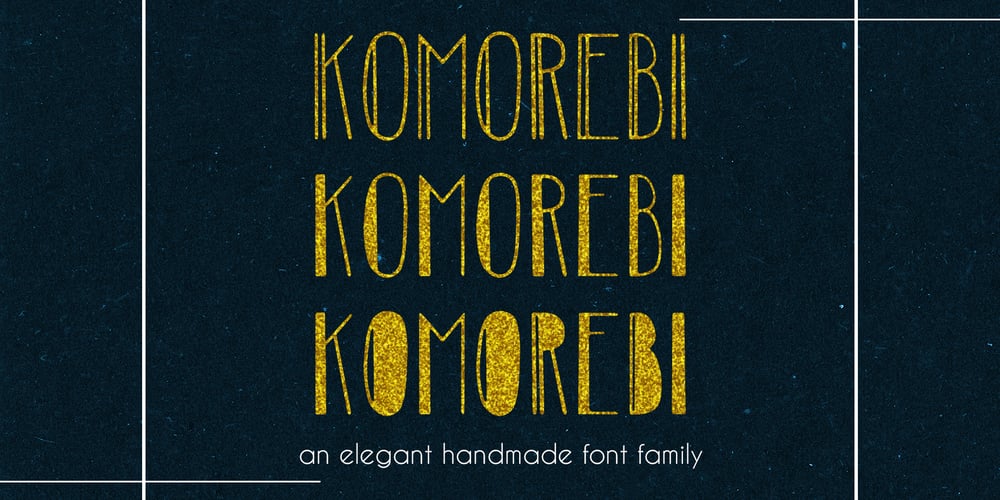
Komorebi
Komorebi font
Komorebi Font Family was designed by Chanel Mülhaupt and published by LiffeyType. Komorebi contains 3 styles and family package options. Komorebi consists of handmade letters made with just a Stabilo pen. It is perfect for large scale texts and headlines. This font is suitable for posters, flyers, business cards or just a beautiful visual with a signature word. The family consists of three styles with both lower and upper case letters, accent characters and special characters. Though I personally recommend using all caps to give your words that bold touch, lower case works just as well!